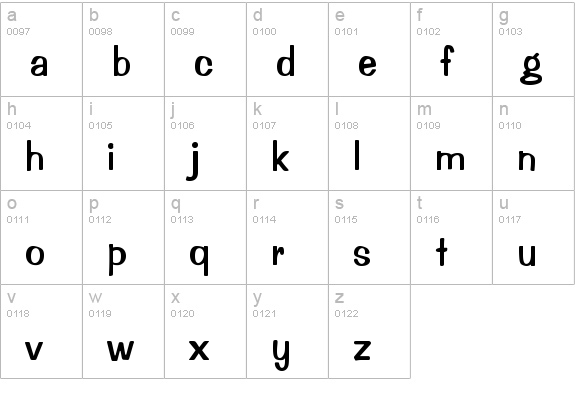
Impress font is a stunning and elegant typeface that will undoubtedly leave a lasting impression on your audience. Its sleek and modern design is perfect for any project that requires a touch of sophistication and style. With its clean lines and graceful curves, Impress font exudes a sense of professionalism and class. But what sets Impress font apart from the rest is its availability as a free download. That's right, you read it correctly - this extraordinary font can be yours without spending a dime. Thanks to FontsMarket.com, you have the opportunity to add this remarkable typeface to your collection without breaking the bank. Whether you're a graphic designer working on a client project, a blogger looking to enhance your website's visual appeal, or simply an individual who appreciates the beauty of typography, Impress font is the ideal choice. Its versatility allows it to be used in a variety of contexts, from logos and headings to body text and invitations. Furthermore, Impress font's free availability means you have more flexibility in allocating your budget to other aspects of your project. With its high-quality and professional appearance, it rivals even the most expensive fonts on the market. So why spend a fortune when you can attain the same level of elegance and refinement with Impress font? Don't miss out on this incredible opportunity to elevate your designs and captivate your audience. Head over to FontsMarket.com today and download Impress font for free. It's time to make a lasting impression with this extraordinary typeface.